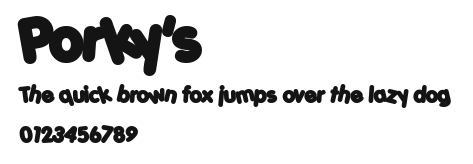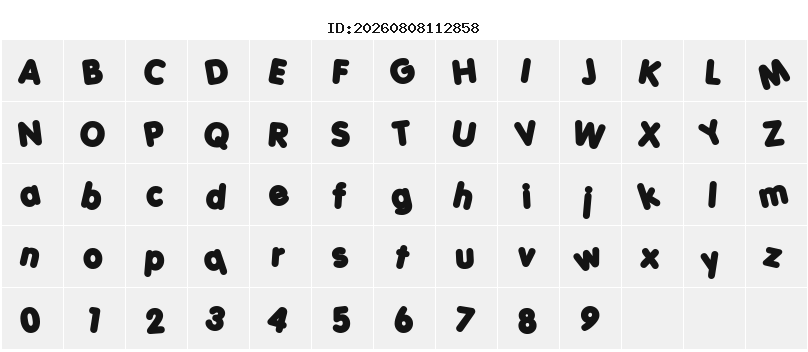
Porky's Preview
• Font Name: Porky's
• Font Style: Heavy
• Full Font Name: Porky's Heavy
About Porky's.ttf
Porky's.ttf is a modern, elegant sans-serif font designed for ultimate readability and visual harmony. Perfect for branding, headlines, web design, and print materials.